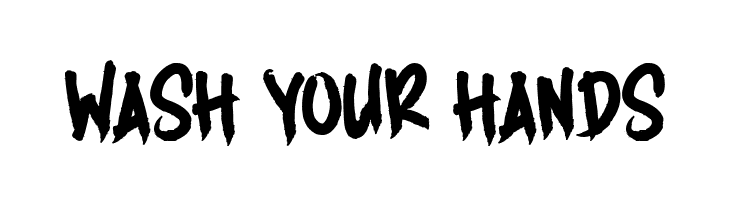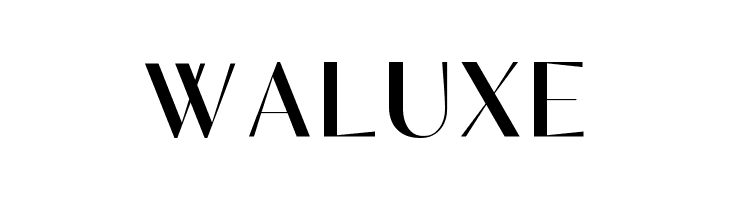
A modern, high-contrast font with elegant and sophisticated styling.
A lively, cursive handwritten font with fluid strokes.
A lively, flowing script font with interconnected letterforms and a friendly appearance.
A bold, geometric font with a double-line structure and a modern, dynamic style.
A bold, brush-stroke font with a dynamic, hand-painted appearance.
A bold, playful handwritten font with thick strokes and rounded edges.
A vintage typewriter-style font with a warm, nostalgic feel.
A thin, elegant font with high contrast and artistic flair.
A playful, handwritten font with tall, narrow letters and a casual style.
A bold, modern sans-serif font with geometric precision.